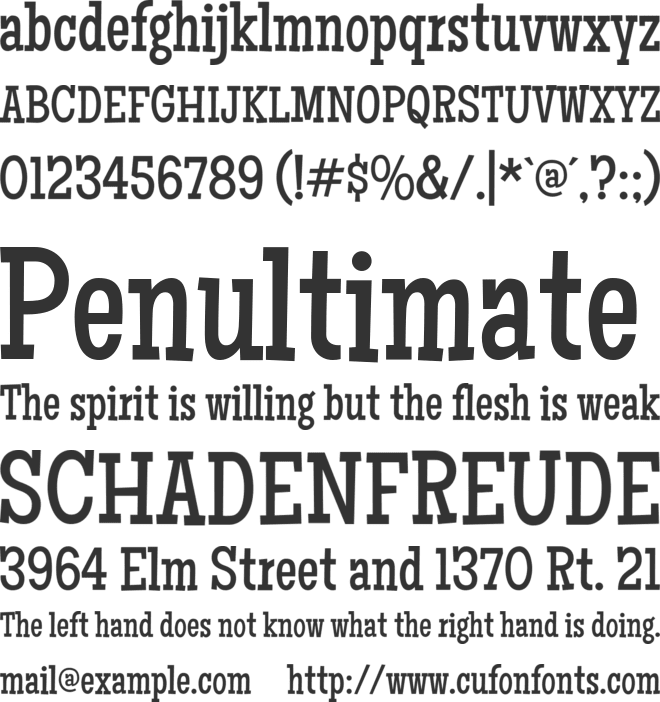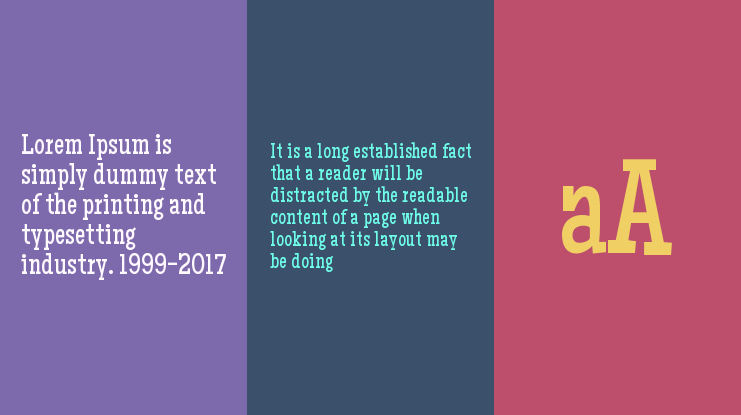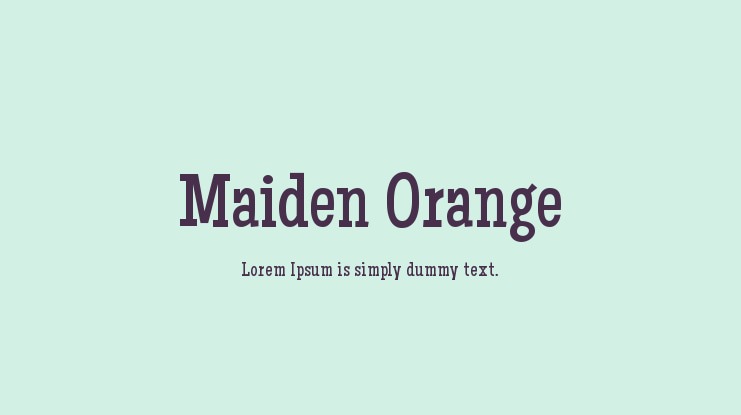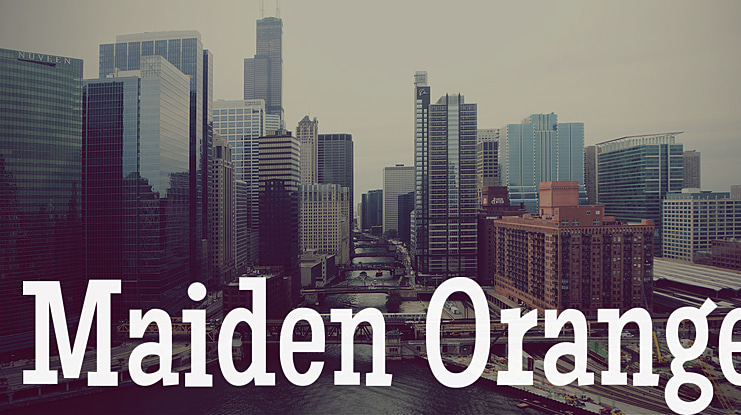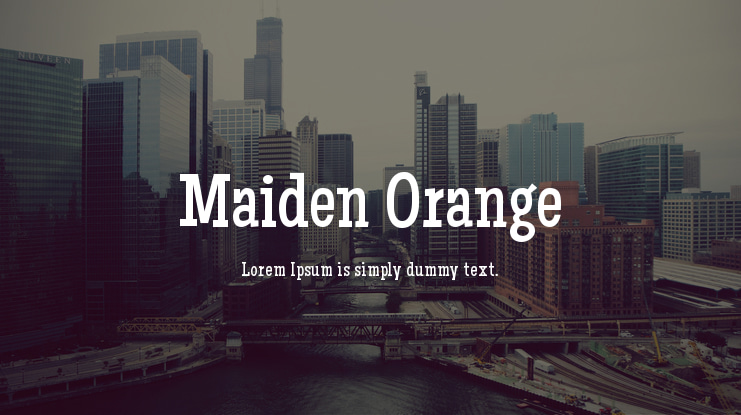
Maiden Orange Font Family
Maiden Orange is a light and festive slab serif font inspired by custom hand lettered 1950's advertisements. Clean and legible, while also being offbeat and friendly, this font lends itself to a wide variety of uses.
From children's stories to the retro inspired, take Maiden Orange for a spin and let her liven up both your website and your design work.